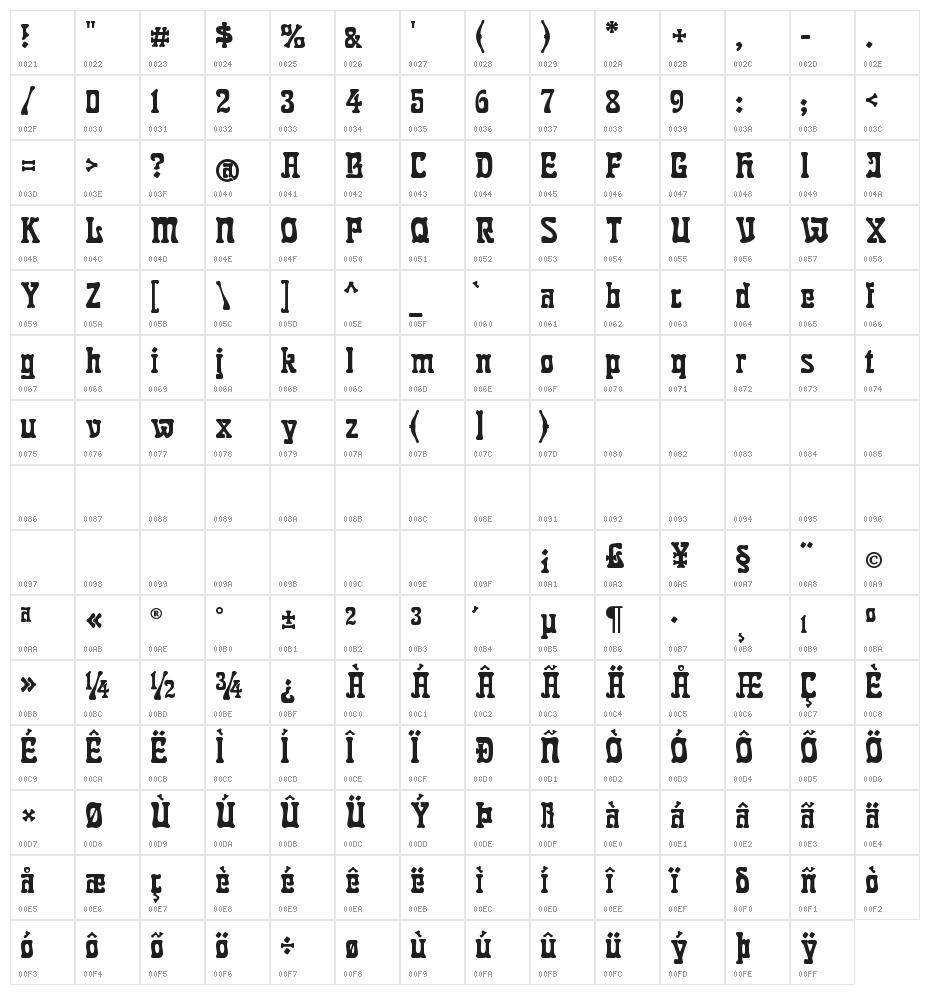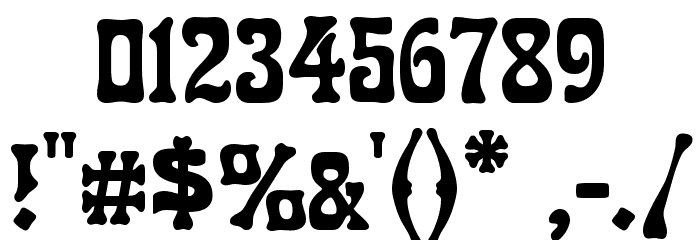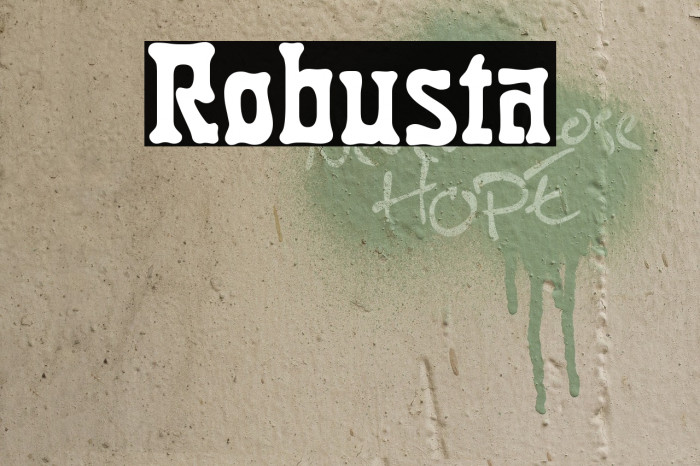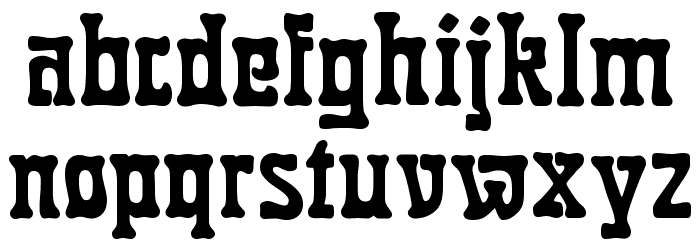
Robusta Font
Robusta Description
This font features a bold and robust design with thick, heavy strokes that give it a strong presence. The characters have a unique, slightly condensed form with rounded edges, creating a harmonious blend of strength and approachability. The uppercase and lowercase letters maintain a consistent style, with the uppercase being slightly more pronounced. Numbers and special characters follow the same design principles, ensuring uniformity across all elements. The font's distinct style makes it suitable for projects that require a bold statement, while its readability ensures it remains functional.